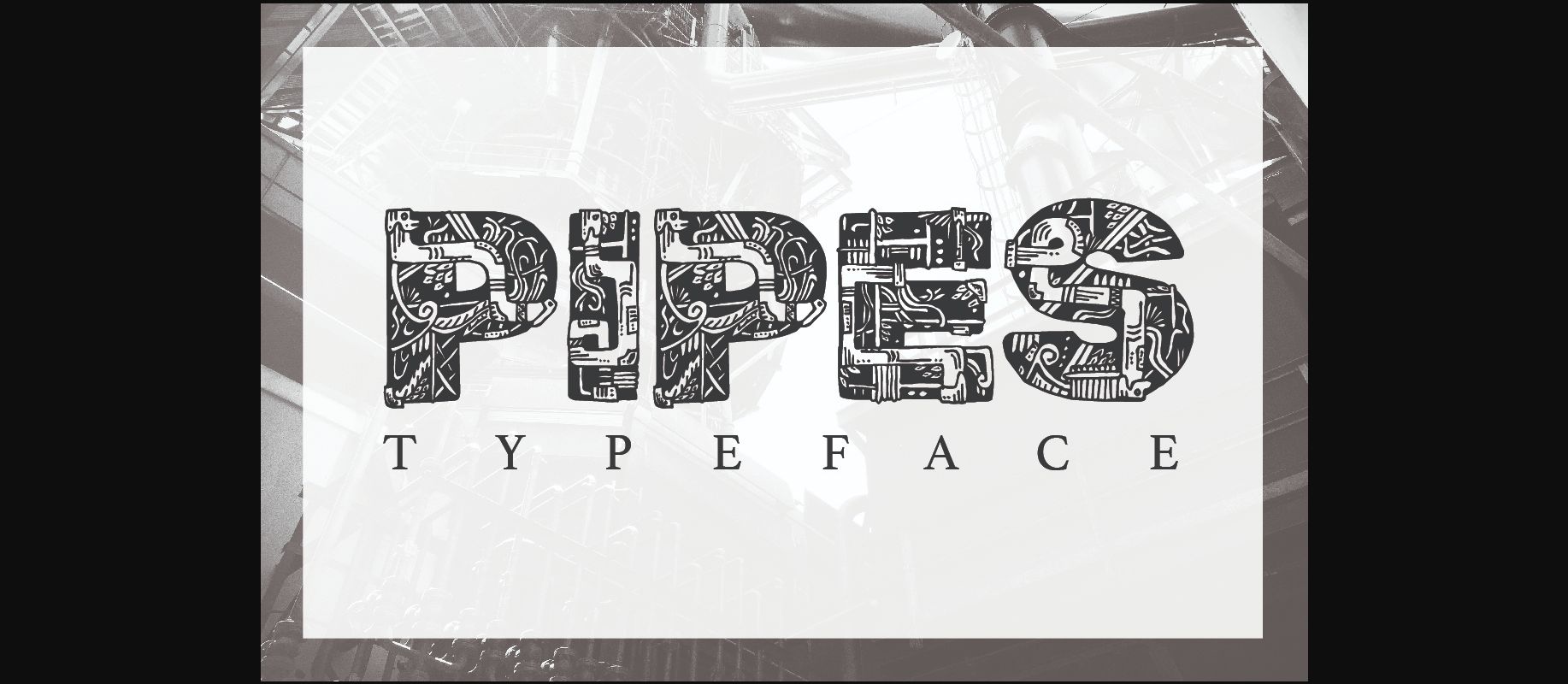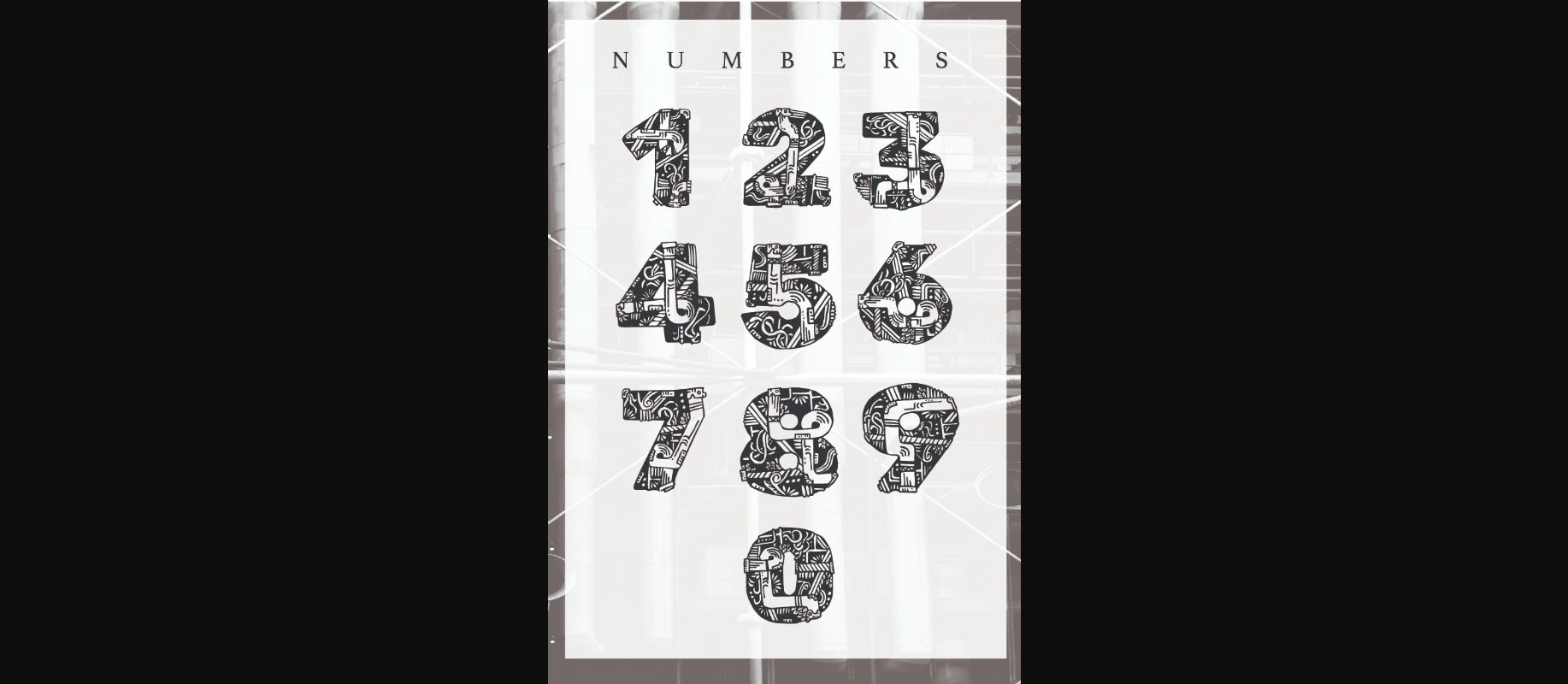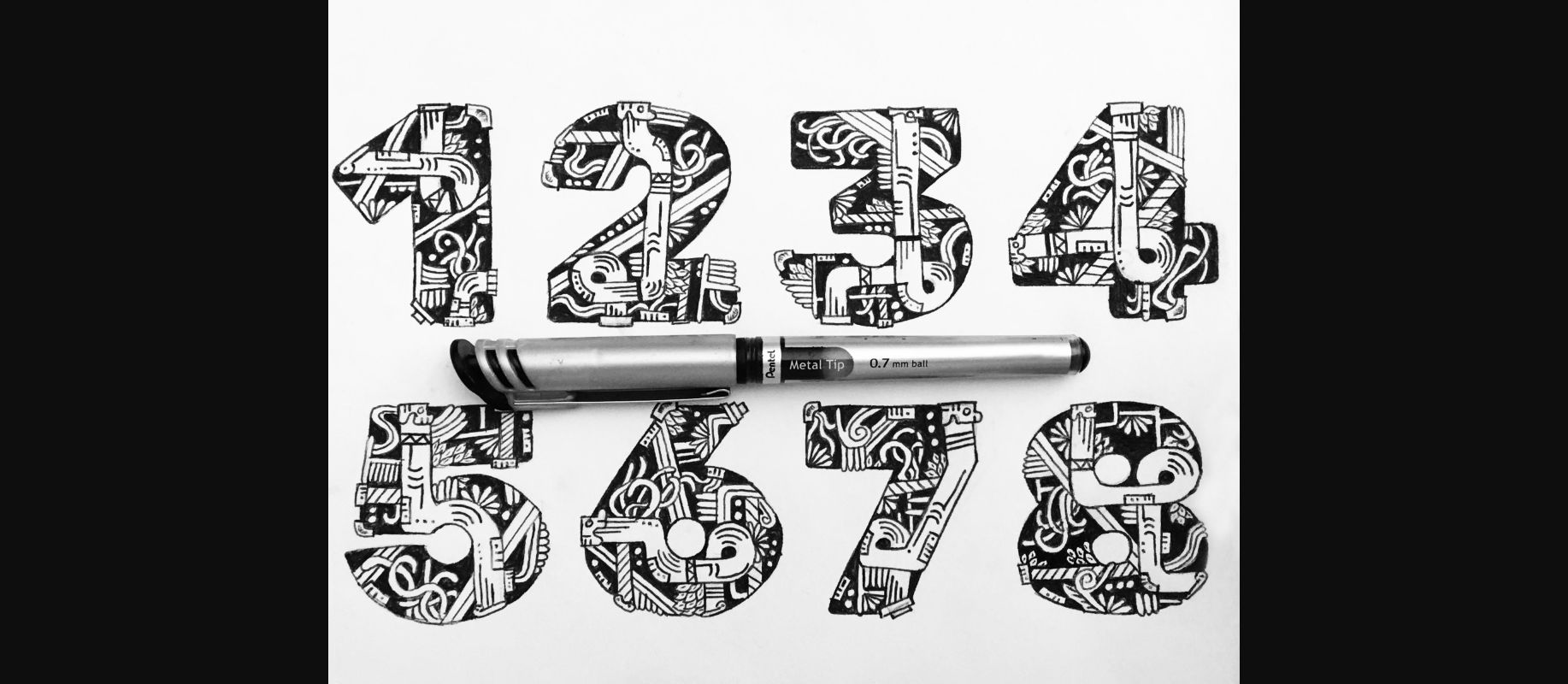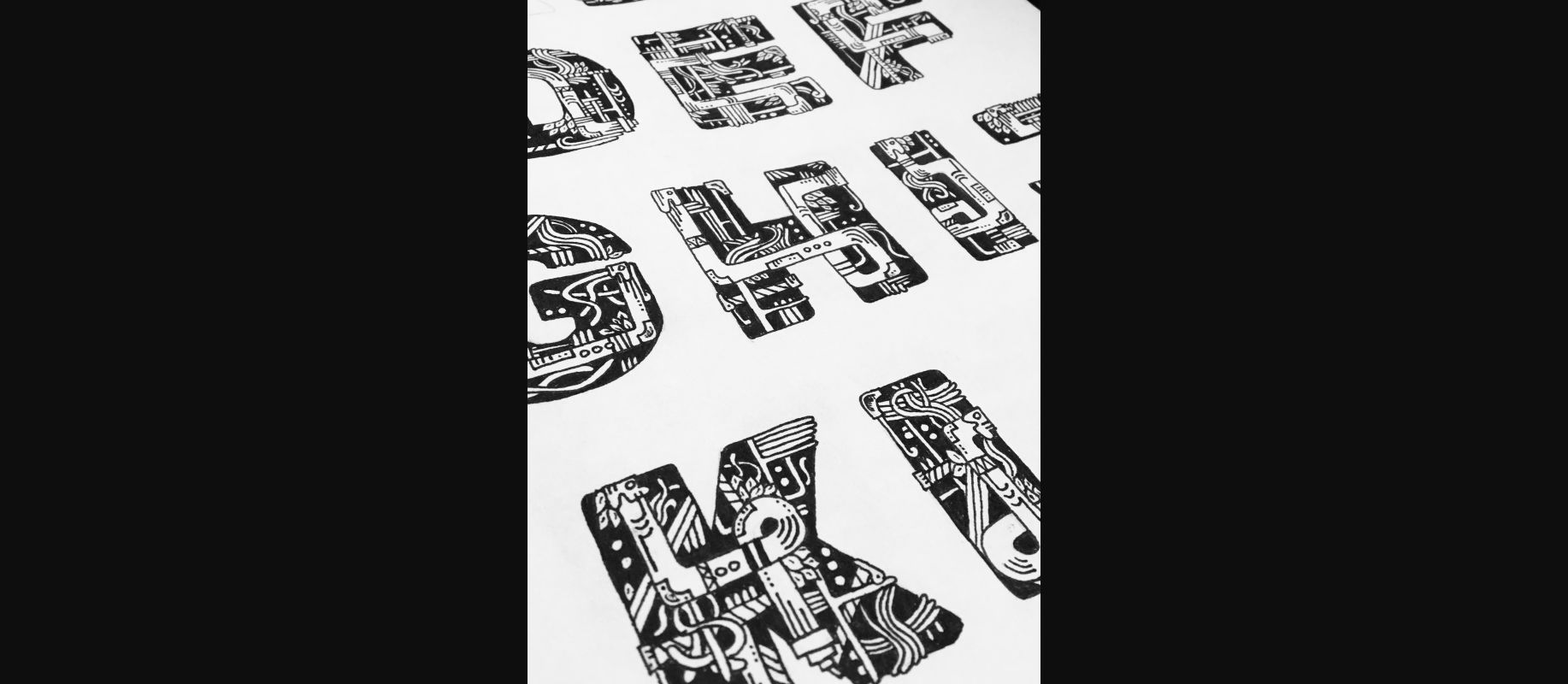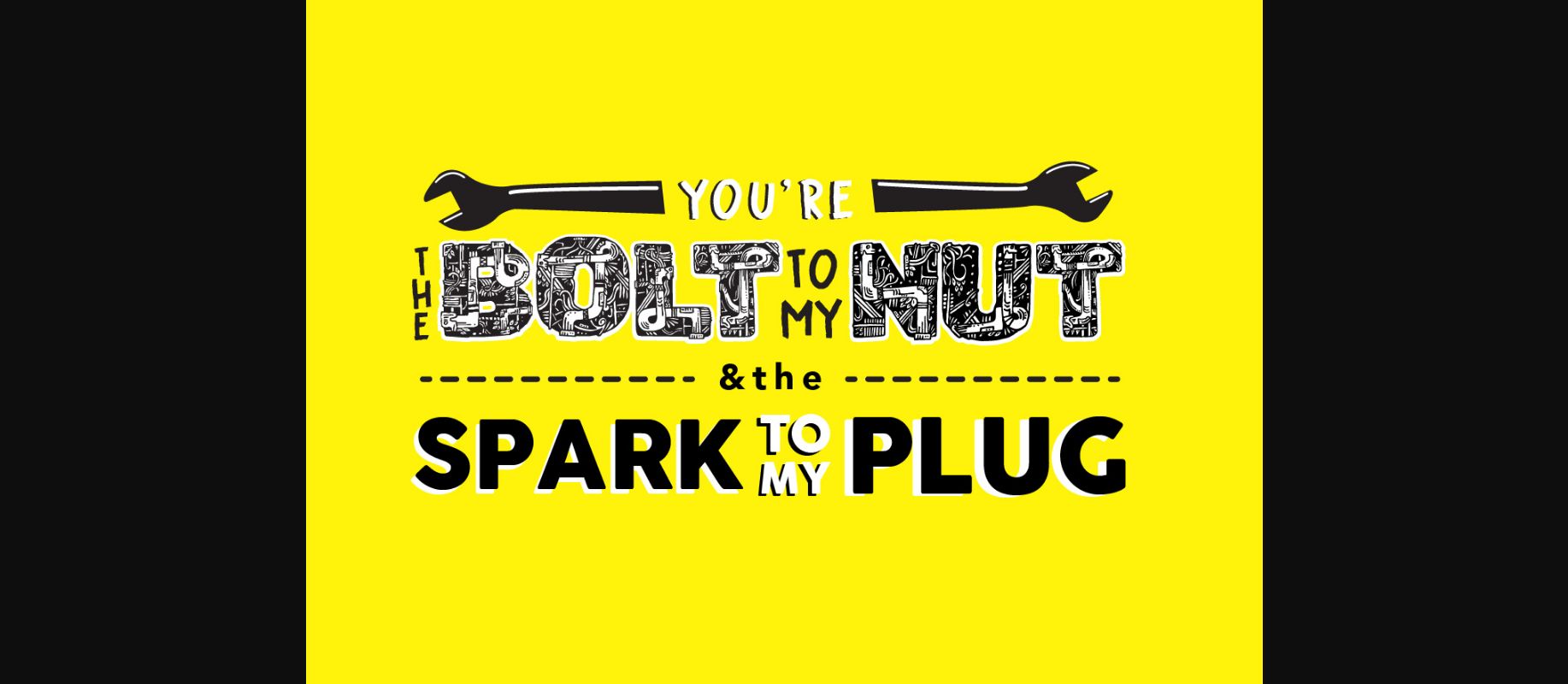
Pipes Font
About Pipes Font
Pipes is a decorative font that includes all caps characters and numbers on a TTF file. It is inspired in the industrial revolution from the 1930s, specifically in the transition from manual work to machinery and the struggle of people to survive in the modern. The font is versatile and it can be combined with other simple serif and sans serif fonts. Enjoy creating!